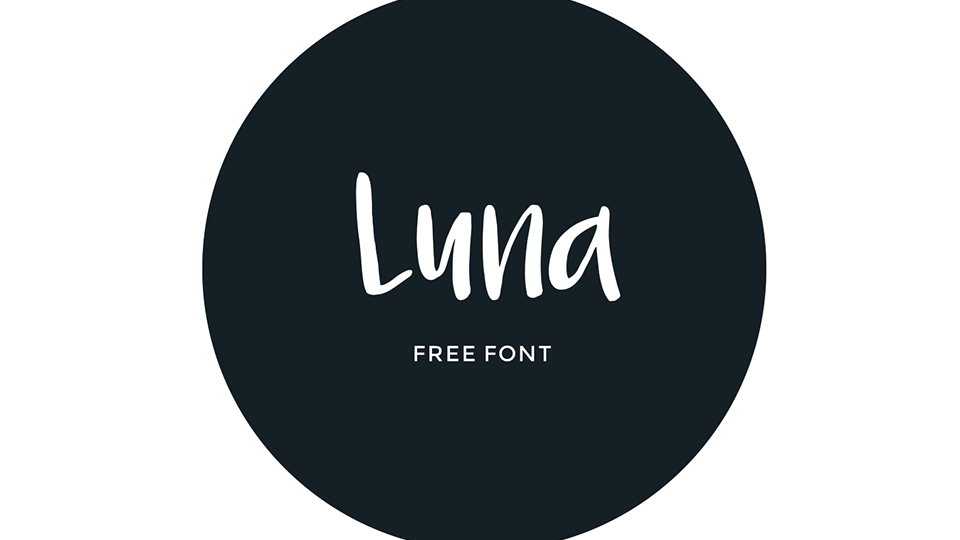
Download Luna – a quirky handwritten brush font with simple and natural feel. Great for craft design, social meda, t-shirt and apparel, cards, posters and other creative projects.
Designer: Amanda Leeson